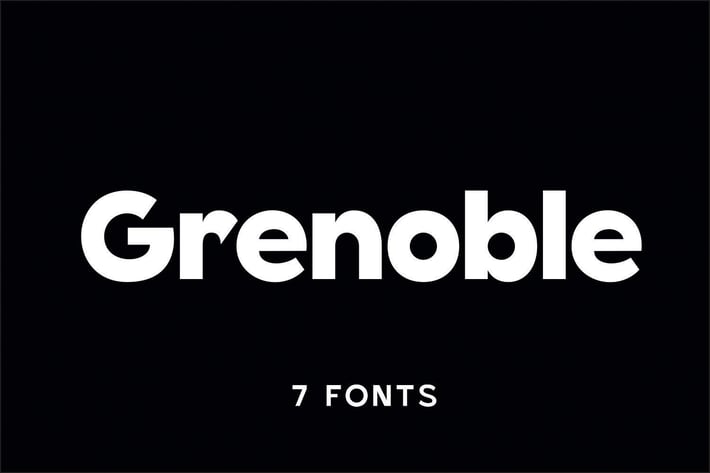
Grenoble - Modern Sans Font
Grenoble is a sleek, geometric sans-serif font that combines a modern edge with classic inspiration. This font family showcases clean lines, sharp angles, and a refreshing simplicity. With its strong, structured shapes and large x-height, Grenoble stands out while remaining highly legible, making it perfect for a wide range of design projects.
The design of Grenoble embraces the essence of neo-grotesk fonts from the 20th century. Its minimal stroke contrast and geometric forms give it a contemporary, yet timeless feel. This makes it a versatile choice for everything from magazine layouts to digital interfaces, ensuring your content is both stylish and easy to read.
Whether you're working on branding, posters, or packaging, Grenoble's modern aesthetic adds a professional touch to your designs. Its adaptability makes it ideal for use in business materials, websites, and advertising campaigns, giving your message a clear and distinctive voice. The font's bold character also makes it an excellent choice for headlines, logos, signage, and more.